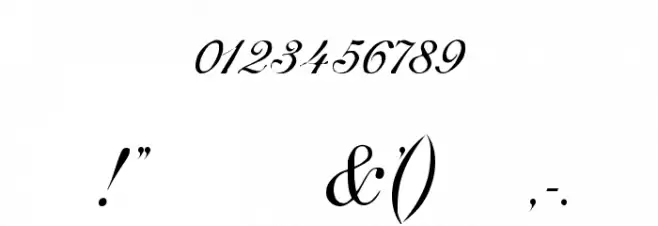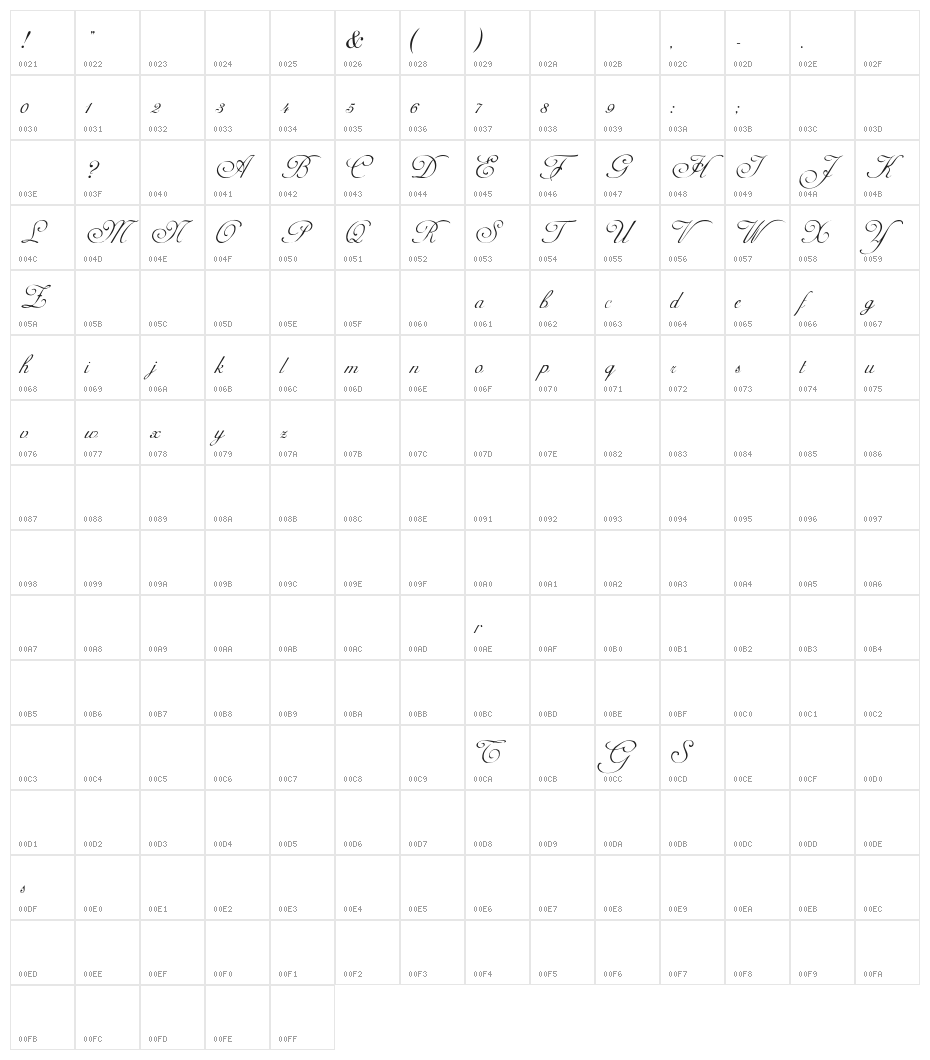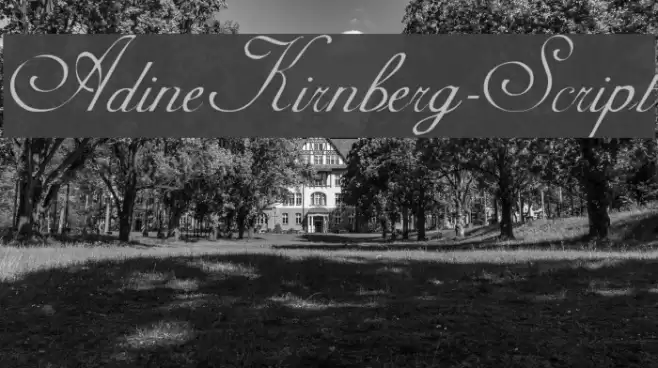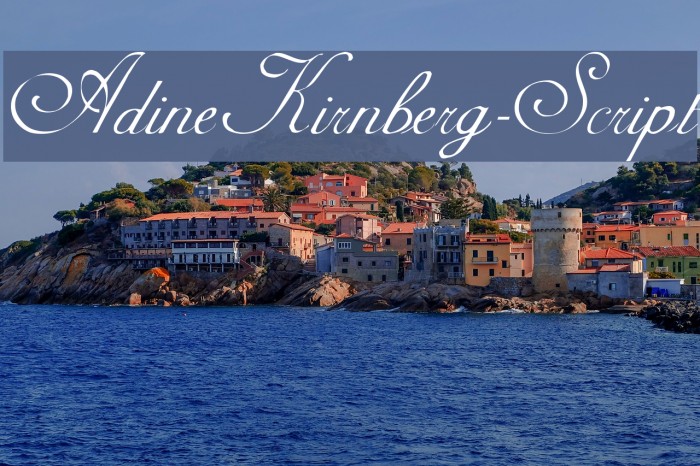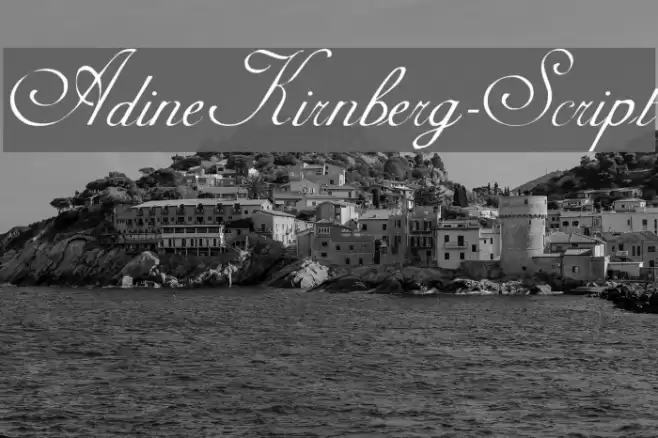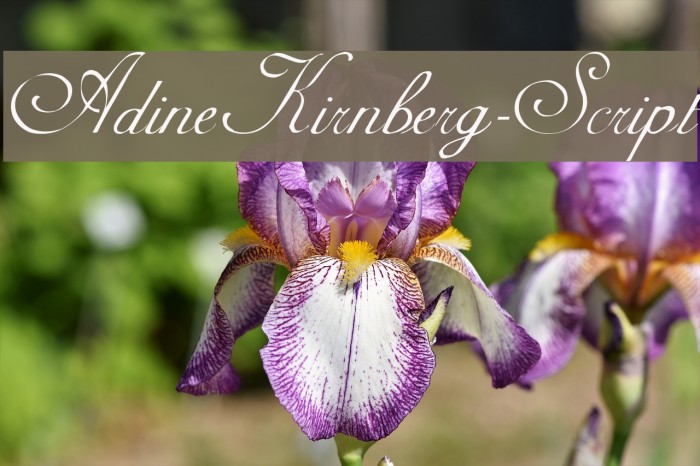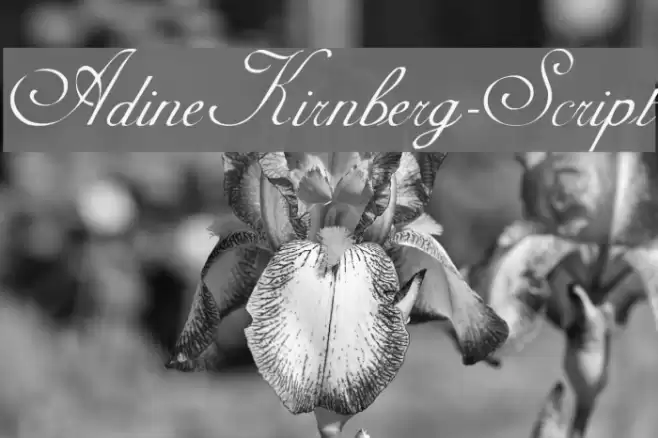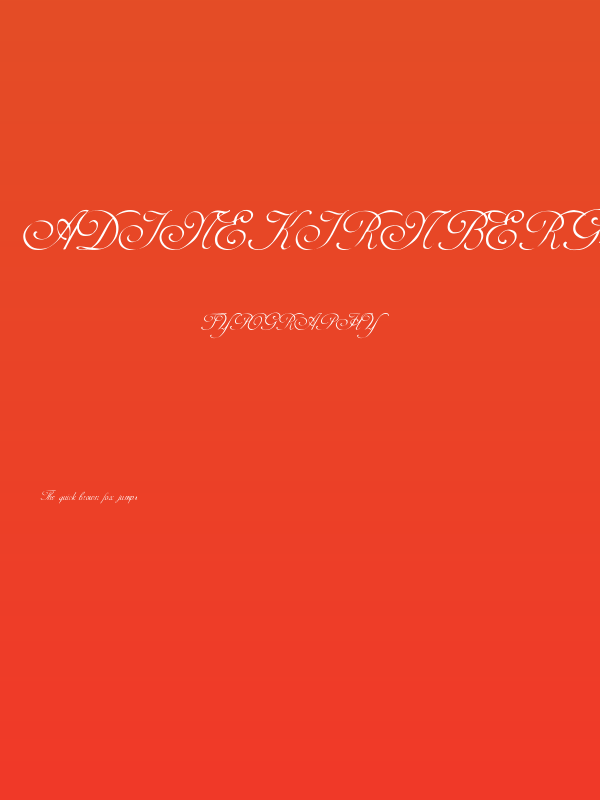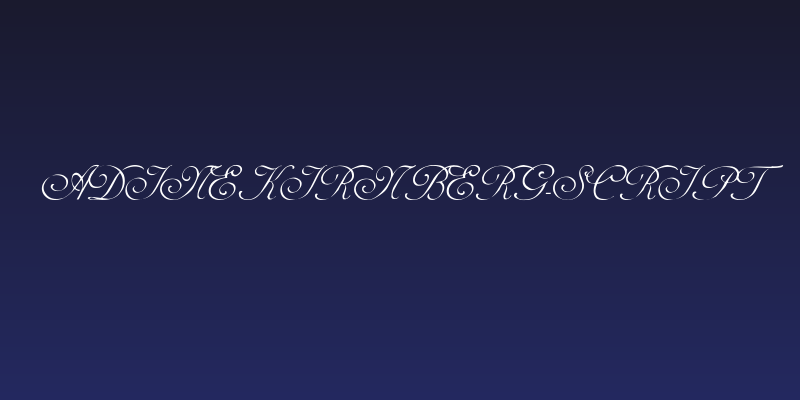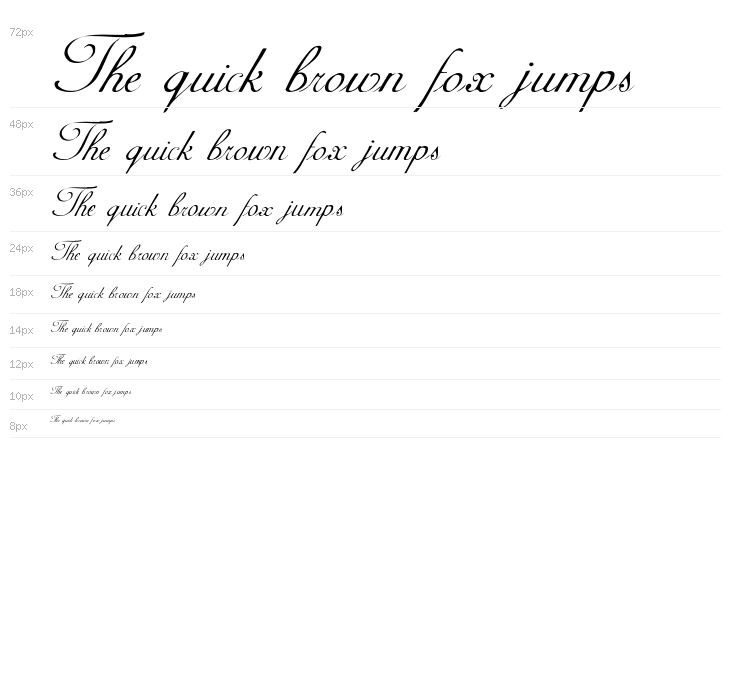
AdineKirnberg-Script Font
AdineKirnberg-Script Description
This elegant script font features flowing, cursive letterforms with intricate loops and swashes, giving it a sophisticated and ornate appearance. The uppercase letters are particularly elaborate, with extended flourishes that add a touch of grandeur. The lowercase letters maintain a consistent style, offering a smooth and connected look that enhances readability despite the decorative nature. The numerals and special characters are designed to match the overall aesthetic, ensuring a cohesive appearance across all text. This font exudes a sense of elegance and formality, making it ideal for projects that require a touch of class and refinement.
Overall StyleElegant, Formal, Decorative
Use CaseInvitations, Branding, Decorative text
Proposed ProjectsIdeal for wedding invitations, formal event programs, elegant branding, and luxury product packaging.